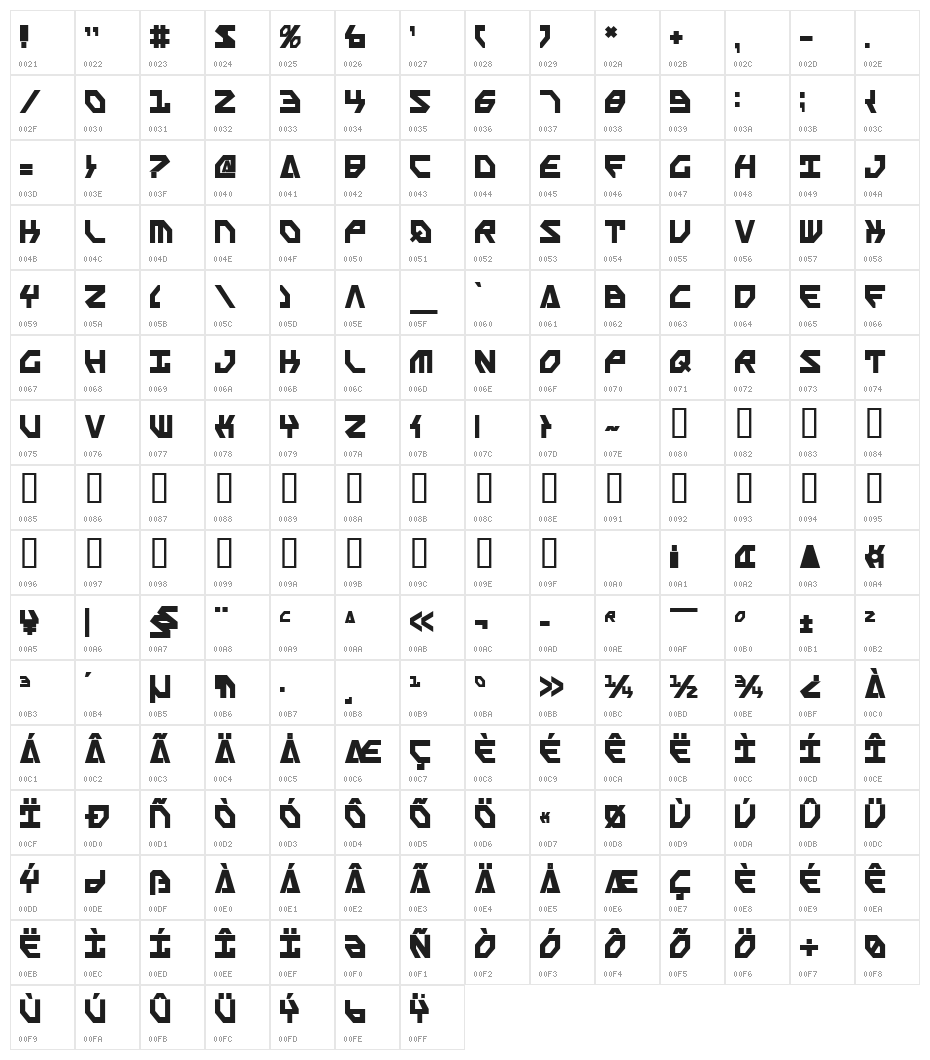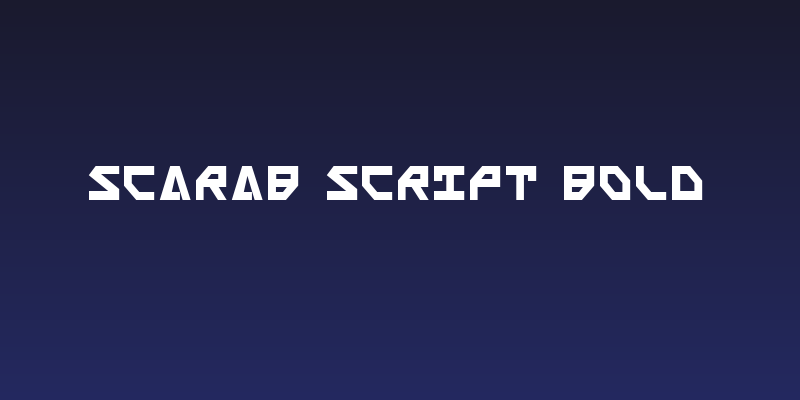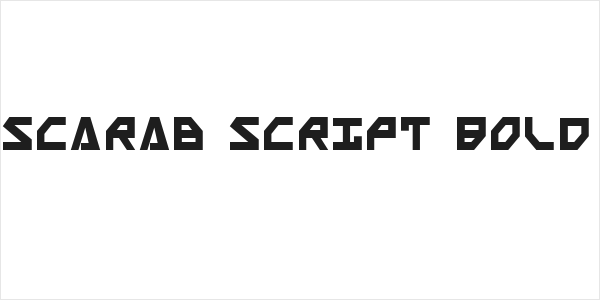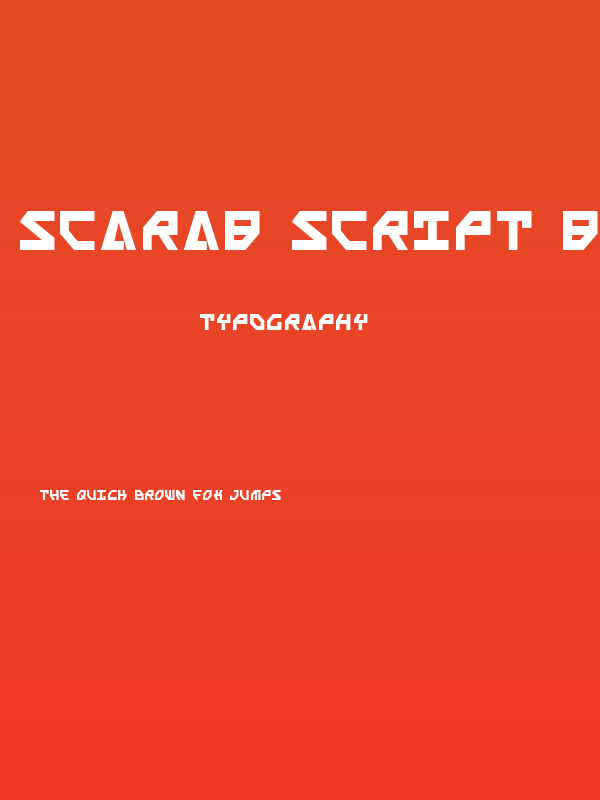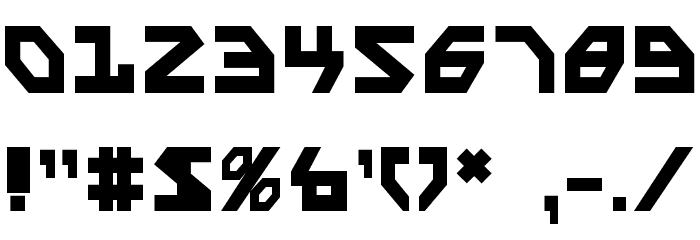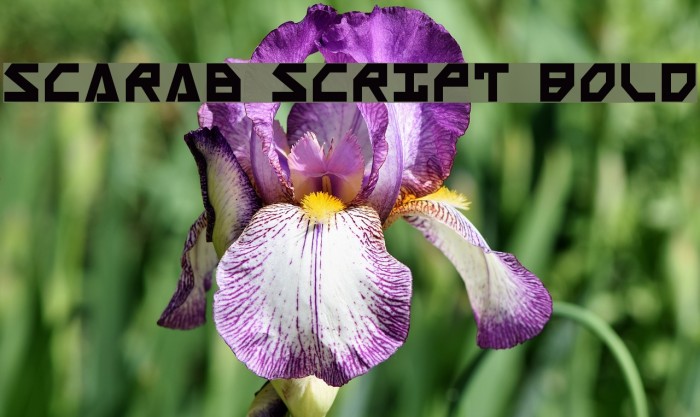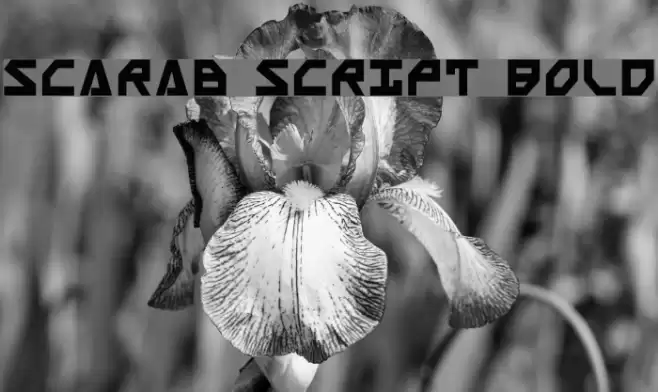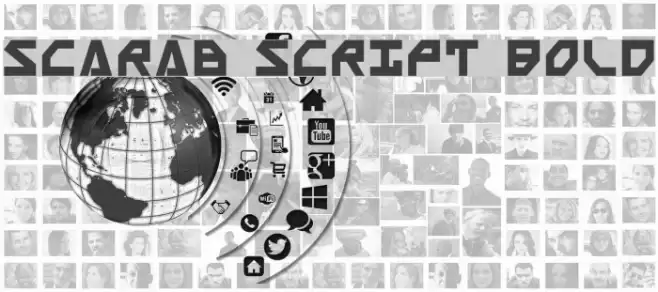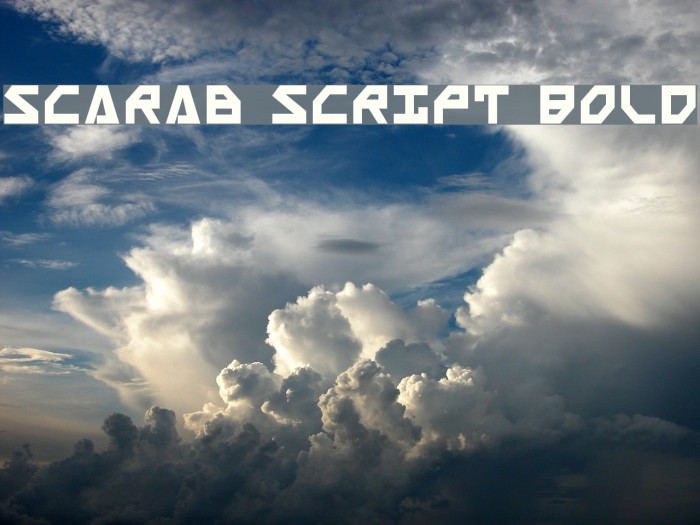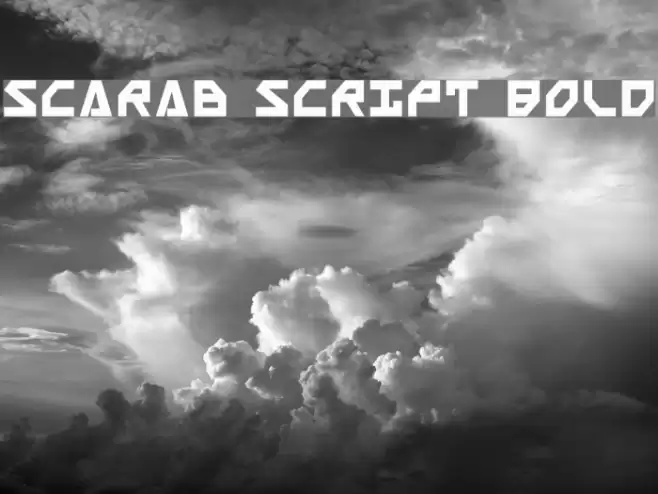
Scarab Script Bold Font
Scarab Script Bold Description
This font features a bold and geometric design, characterized by sharp angles and a blocky appearance. The letters are constructed with a futuristic aesthetic, offering a sense of strength and modernity. Each character is distinct, with a uniform thickness that contributes to its bold presence. The font's style is reminiscent of digital or sci-fi themes, making it suitable for projects that require a strong visual impact. The numbers and special characters maintain the same angular and robust design, ensuring consistency across all elements.
| Proposed Projects | Ideal for sci-fi themed posters, video game titles, technology branding, and digital artwork. |